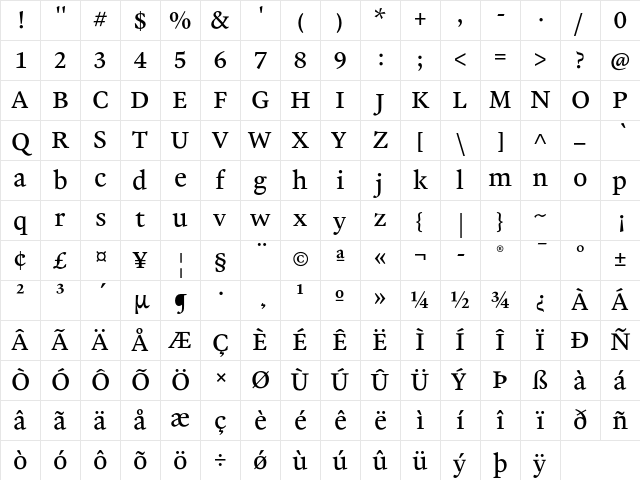
Malabar LT Pro Regular
Designer: Dan Reynolds
Design Context for Malabar LT Pro
Malabar LT Pro is a composed and adaptable typeface that performs quietly and consistently across a wide range of design contexts. Its slender proportions lend an understated elegance to any composition.
Pro Tip: Use Malabar LT Pro in both headline and body roles to test its range before committing to a single application.